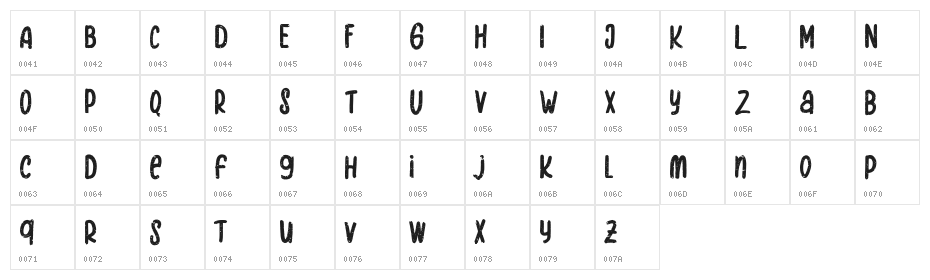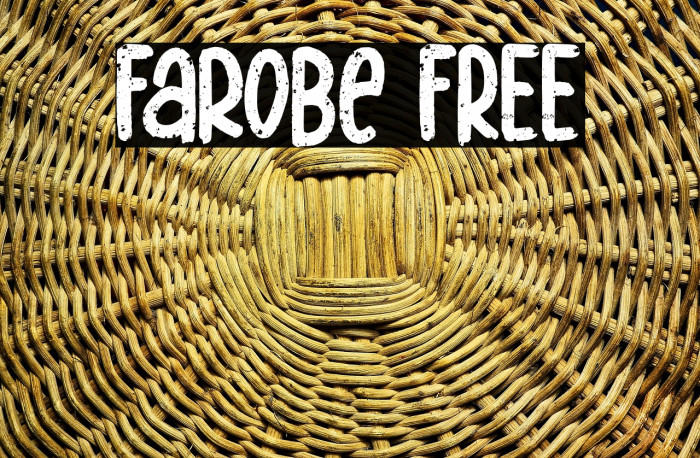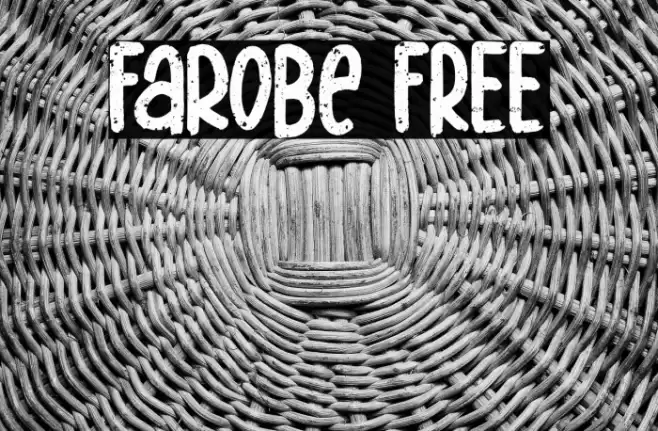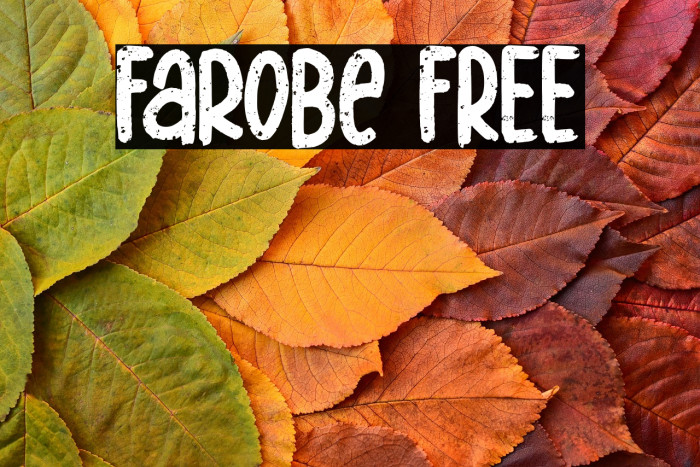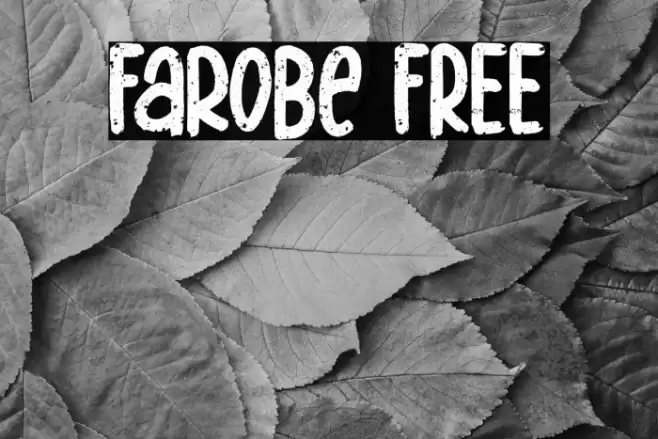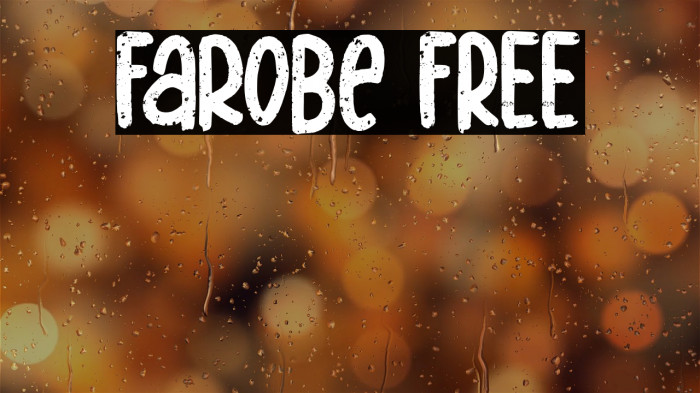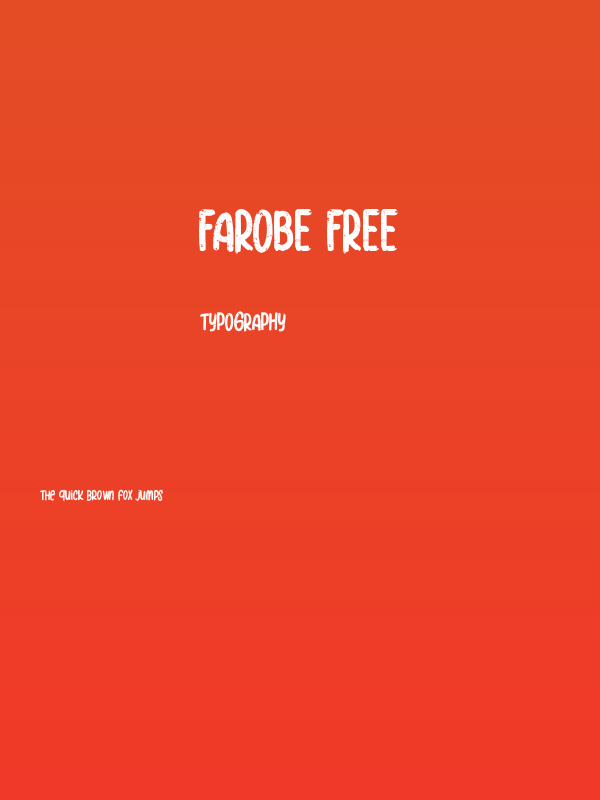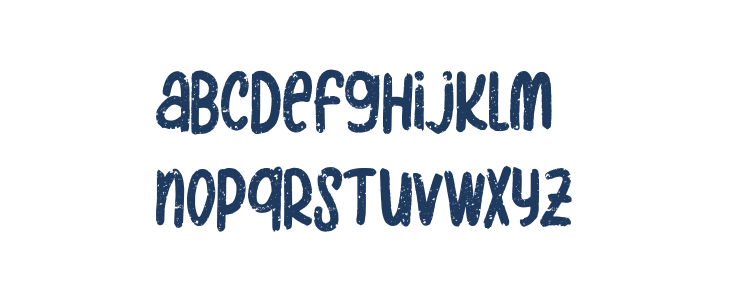
Farobe FREE Font
Farobe FREE Description
This font features a bold, distressed style with a hand-drawn appearance, giving it a rugged and textured look. The letters are thick and slightly uneven, adding a sense of dynamism and energy. The uppercase and lowercase characters maintain a consistent style, with rounded edges and a playful, informal vibe. The texture within each letter adds depth and a vintage feel, making it suitable for projects that require a touch of personality and uniqueness. The font's boldness ensures readability while its distressed texture provides an artistic flair.